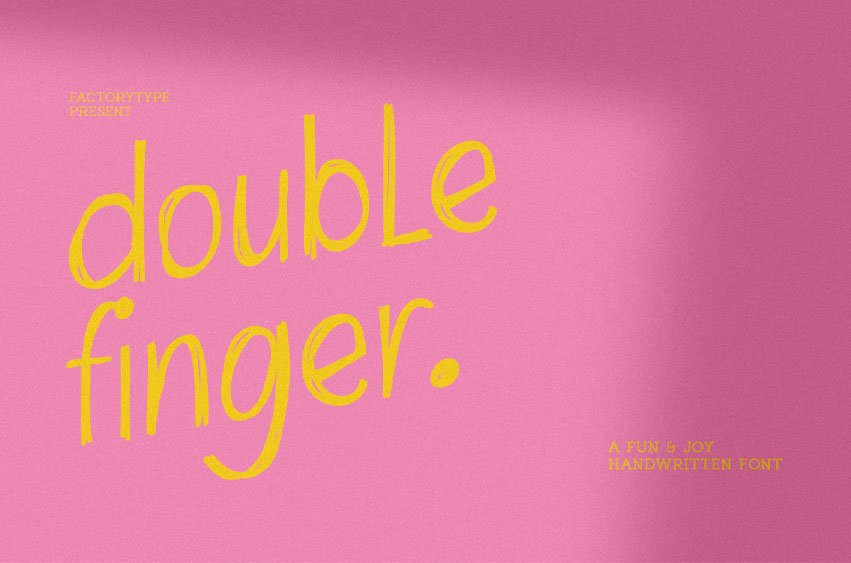
Doublefinger Font For your children’s projects, Doublefinger Font Duo is a cheerful and entertaining font set. Every letter has been painstakingly crafted to give your text a stunning appearance. Quotes, blog headers, posters, weddings, branding, logos, fashion, apparel, letters, invitations, stationery, and more can all benefit from the modern, unique style of this font.
- Doublefinger (Joy and Fun font)
- Basic Latin A-Z and a-z
- Stylistic Ligatures
- Multilingual Support for ä ö ü Ä Ö Ü …